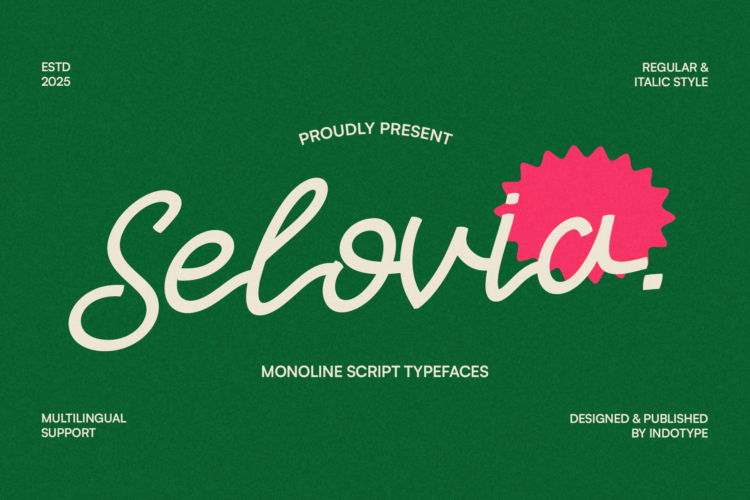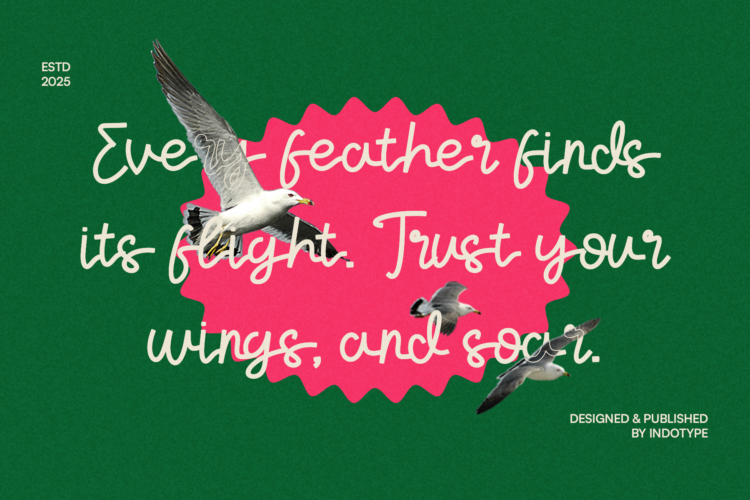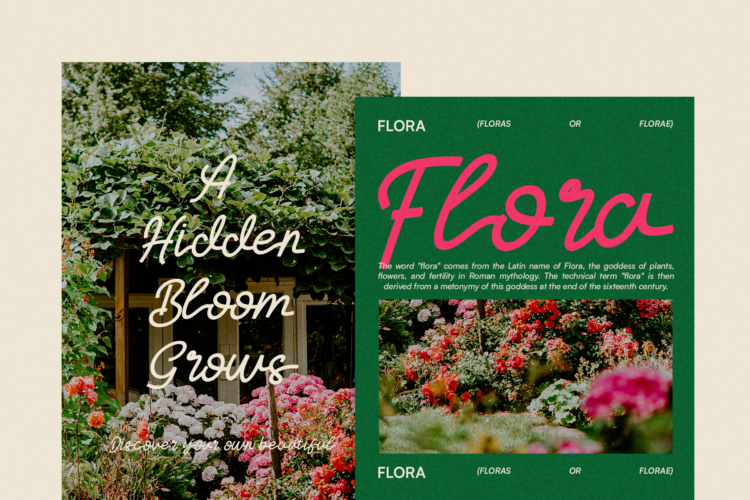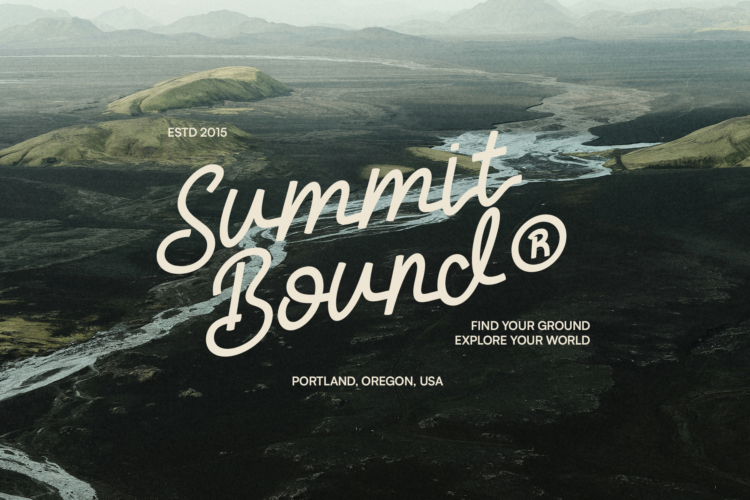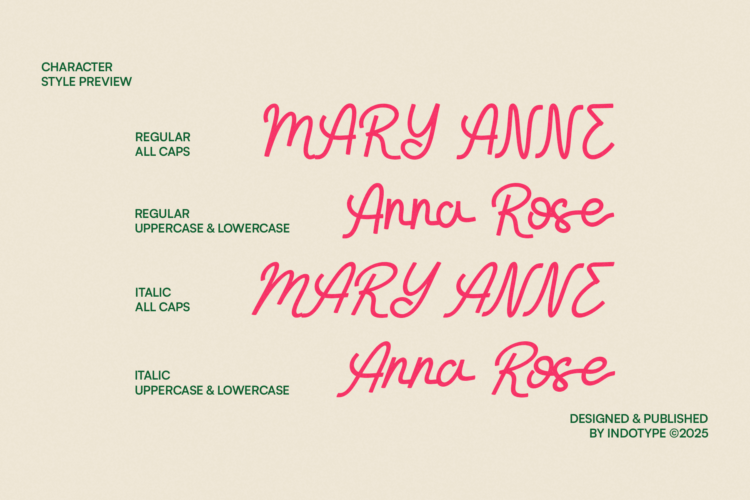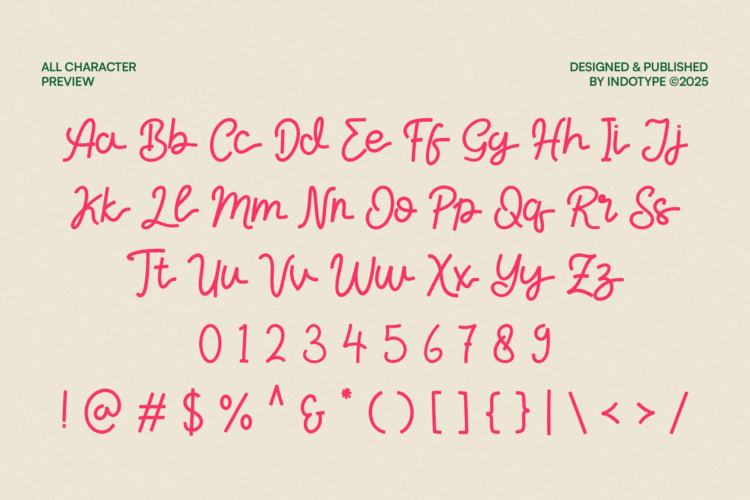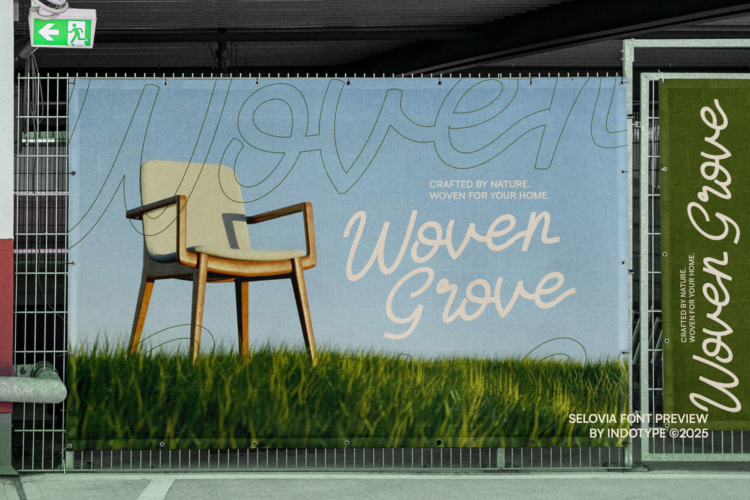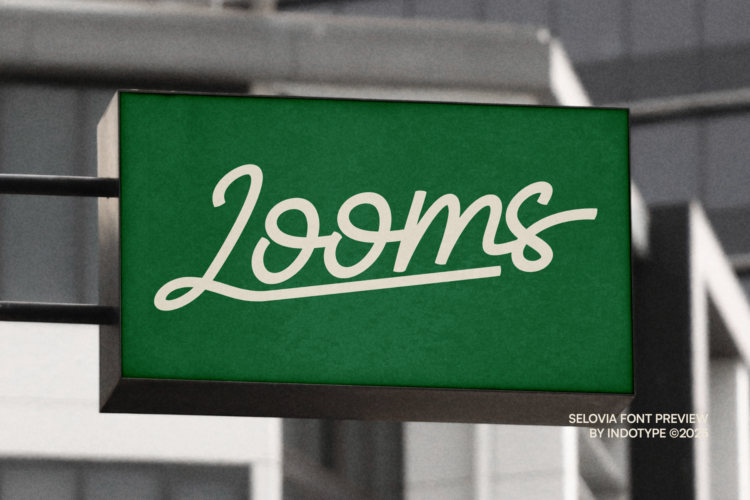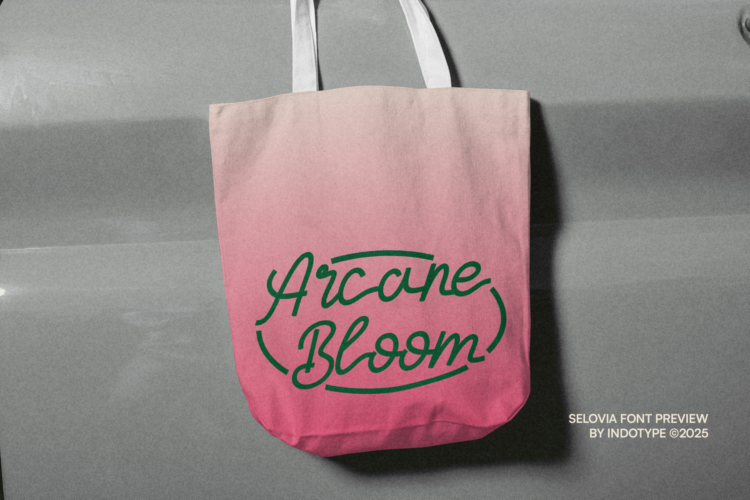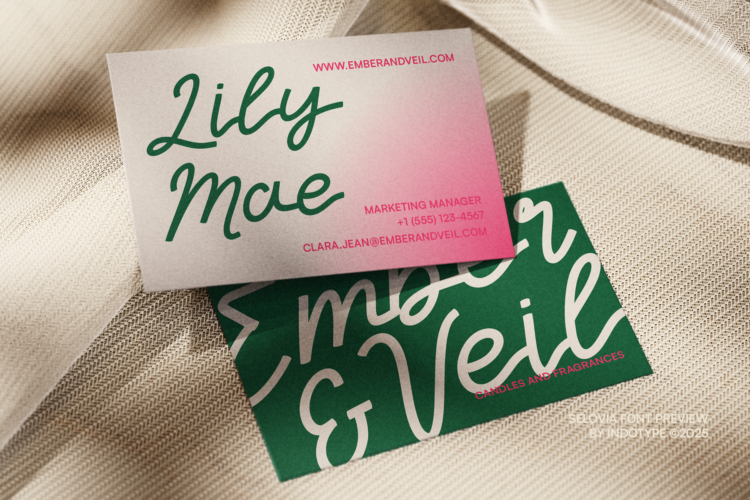
Selovia is a monoline script typeface that combines elegance with modern versatility. Designed with smooth, continuous strokes and natural curves, Selovia captures the warmth and authenticity of hand-lettering while maintaining the clarity of a clean digital font. Available in Regular and Italic styles, this typeface is perfect for projects that require a personal, friendly, and approachable feel. Its fluid letterforms make it an ideal choice for logos, wedding invitations, branding, packaging, social media, greeting cards, editorial design, and lifestyle products. Selovia also supports multilingual characters, ensuring global usability for diverse projects. Published by Indotype in 2025, Selovia is a modern script font that effortlessly balances charm and professionalism, making it a timeless addition to your type library.
- Multilingual Support accents and diacritics